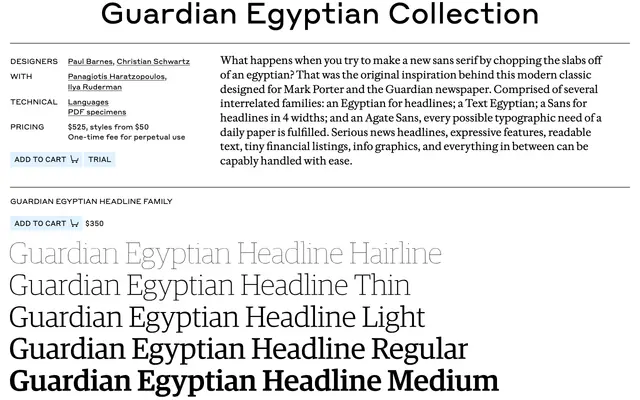
Guardian Egyptian
Commercial Type · Paul Barnes, Christian Schwartz
The Egyptian half of the Guardian newspaper system, an editorial slab in Headline and Text optical sizes built for serious news work.
An editorial slab serif designed by Paul Barnes and Christian Schwartz for Mark Porter's redesign of the Guardian newspaper, with help from Panagiotis Haratzopoulos and Ilya Ruderman on the Greek and Cyrillic. Guardian Egyptian sits in two optical sizes, Headline and Text, with weights running from Hairline through to Black with matching italics. Built to cover everything from serious news headlines to expressive features and long-form text, and pairs natively with Guardian Sans and Guardian Agate.
Commercial Type frame Guardian Egyptian as the Egyptian half of the Guardian newspaper system designed for Mark Porter, with a Headline Egyptian and a Text Egyptian sitting alongside Guardian Sans and Guardian Agate.